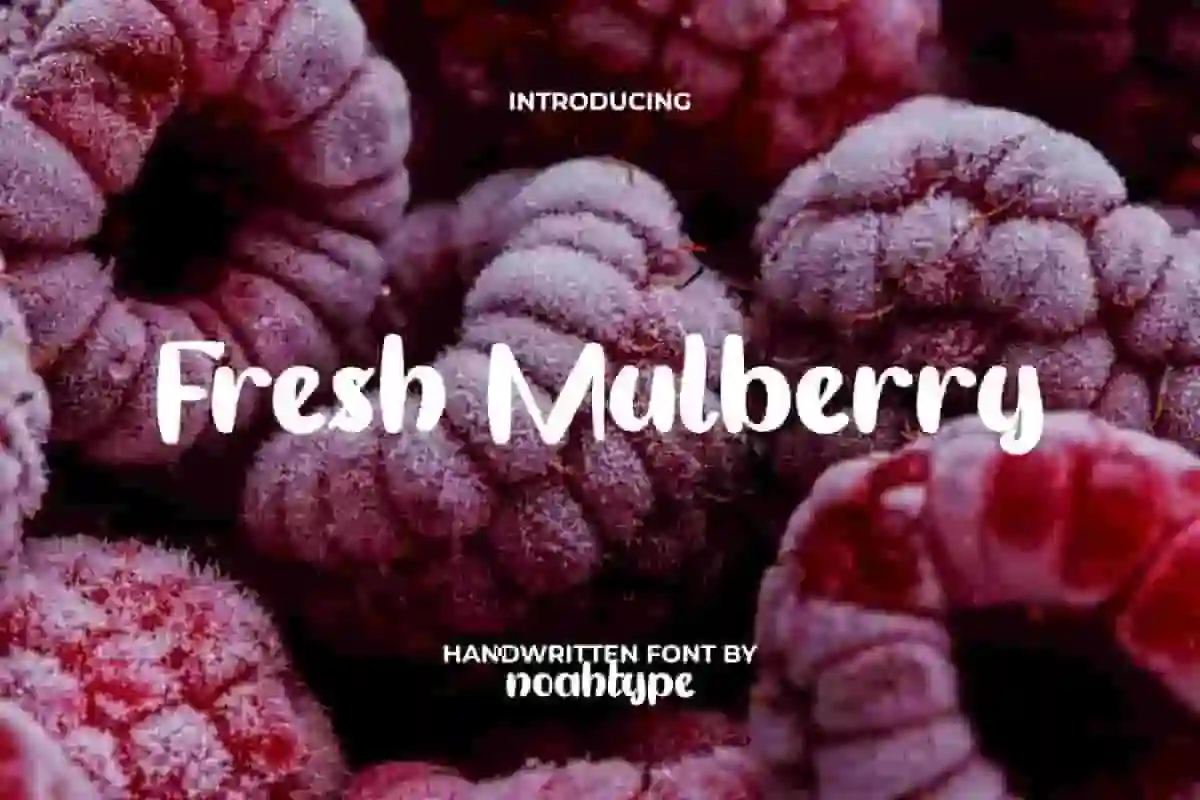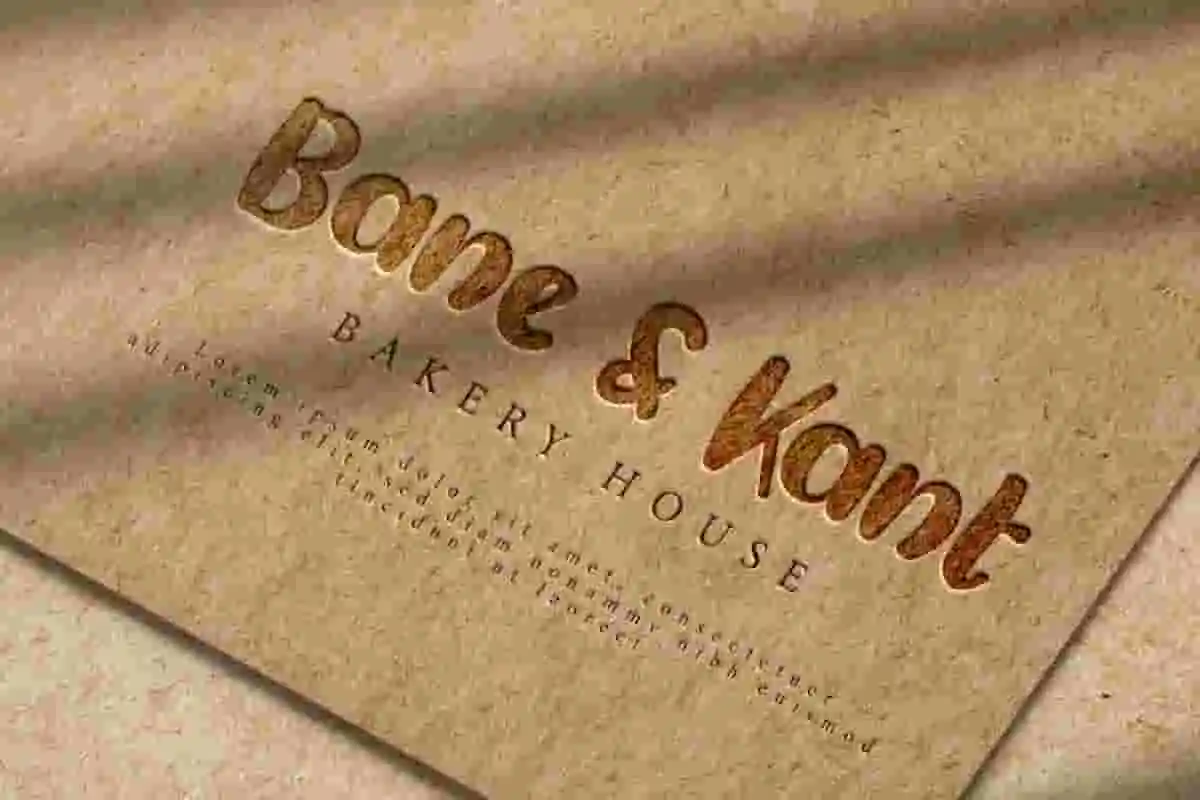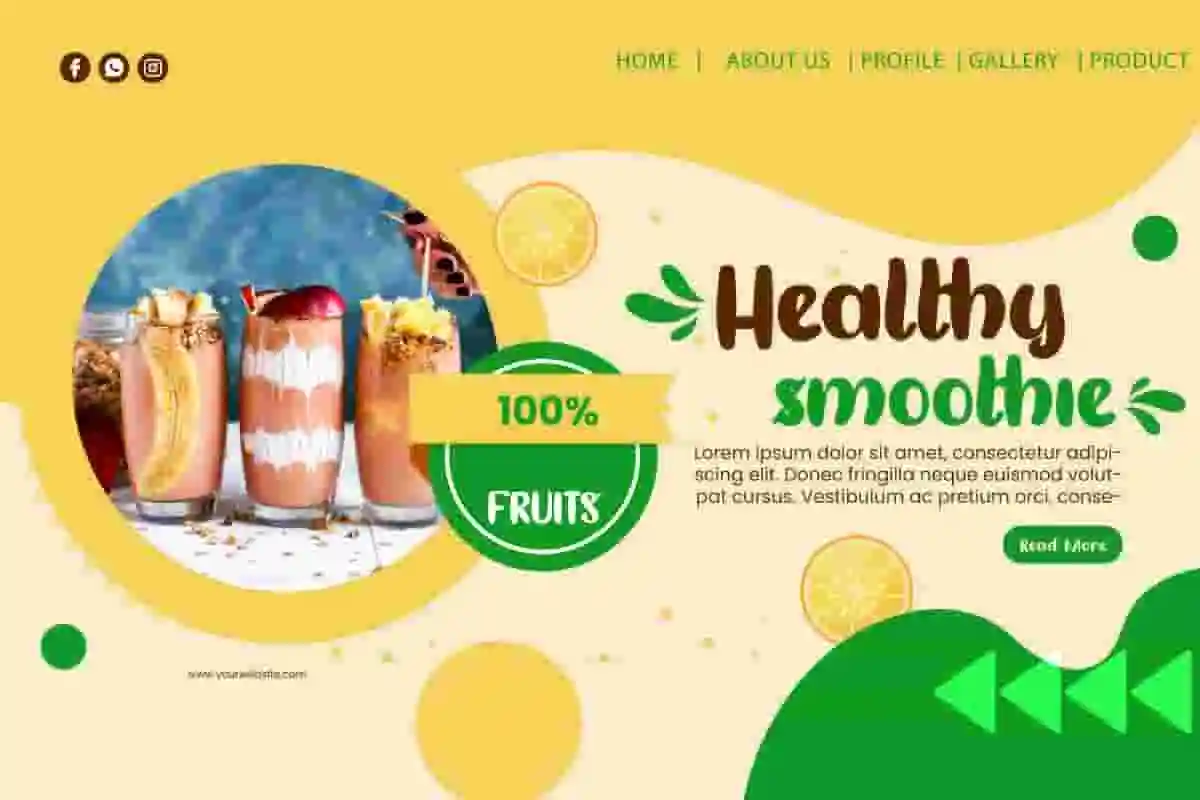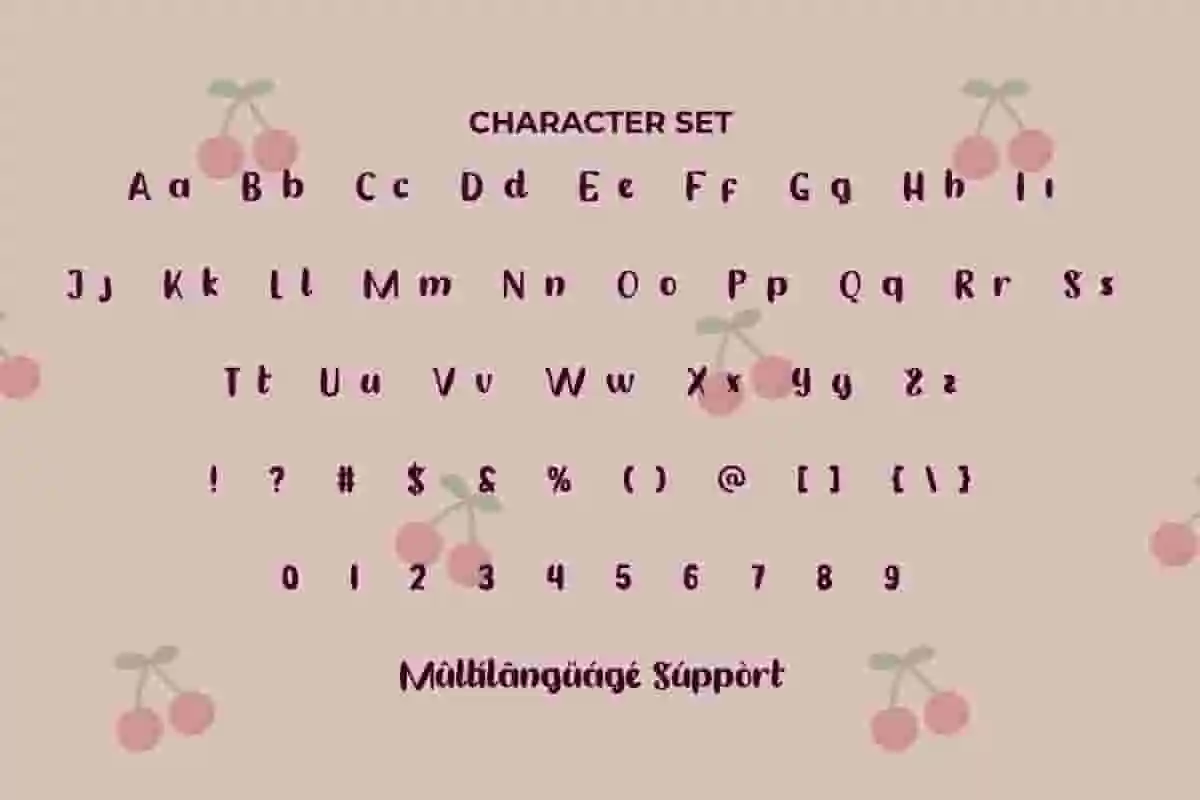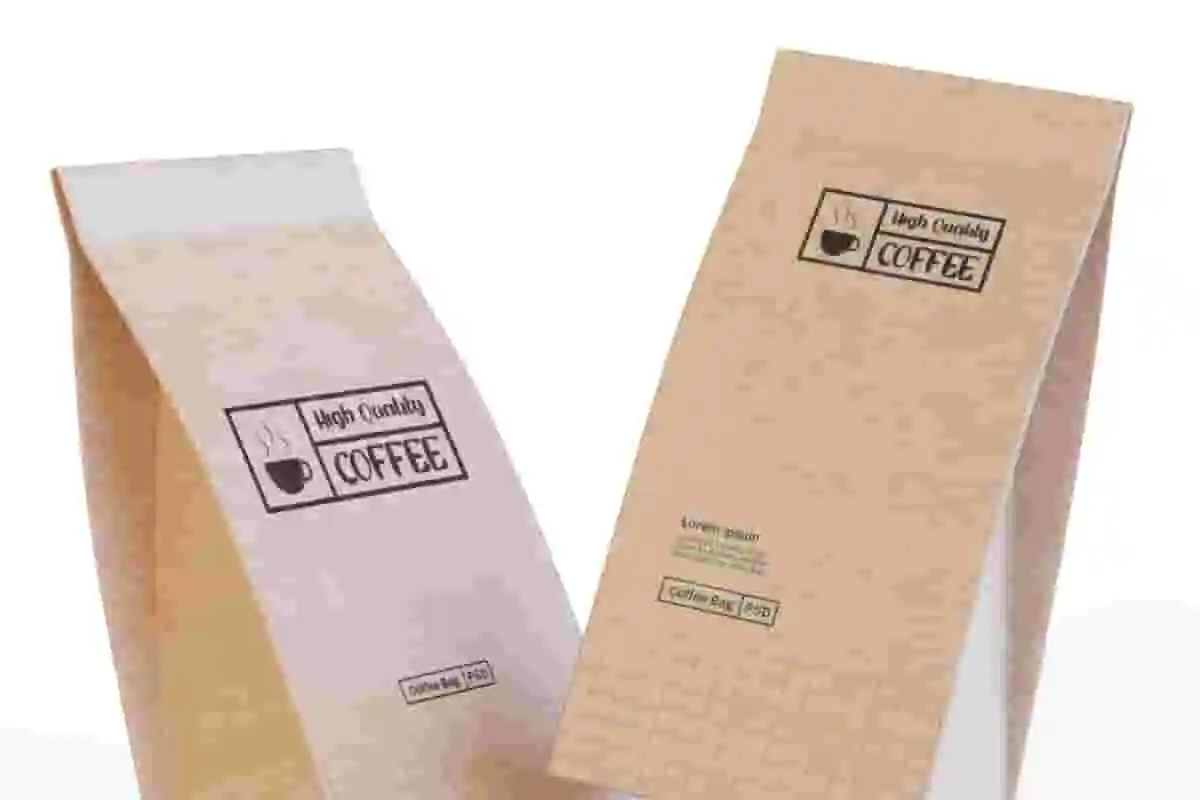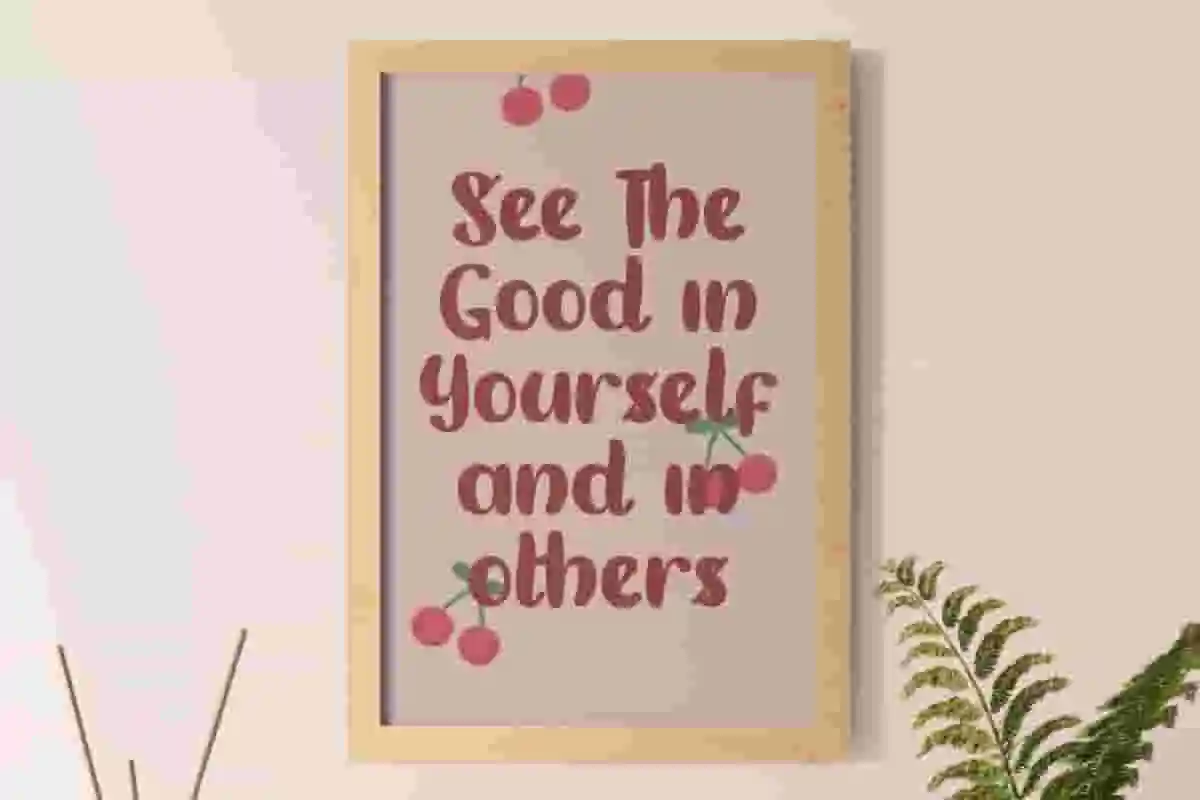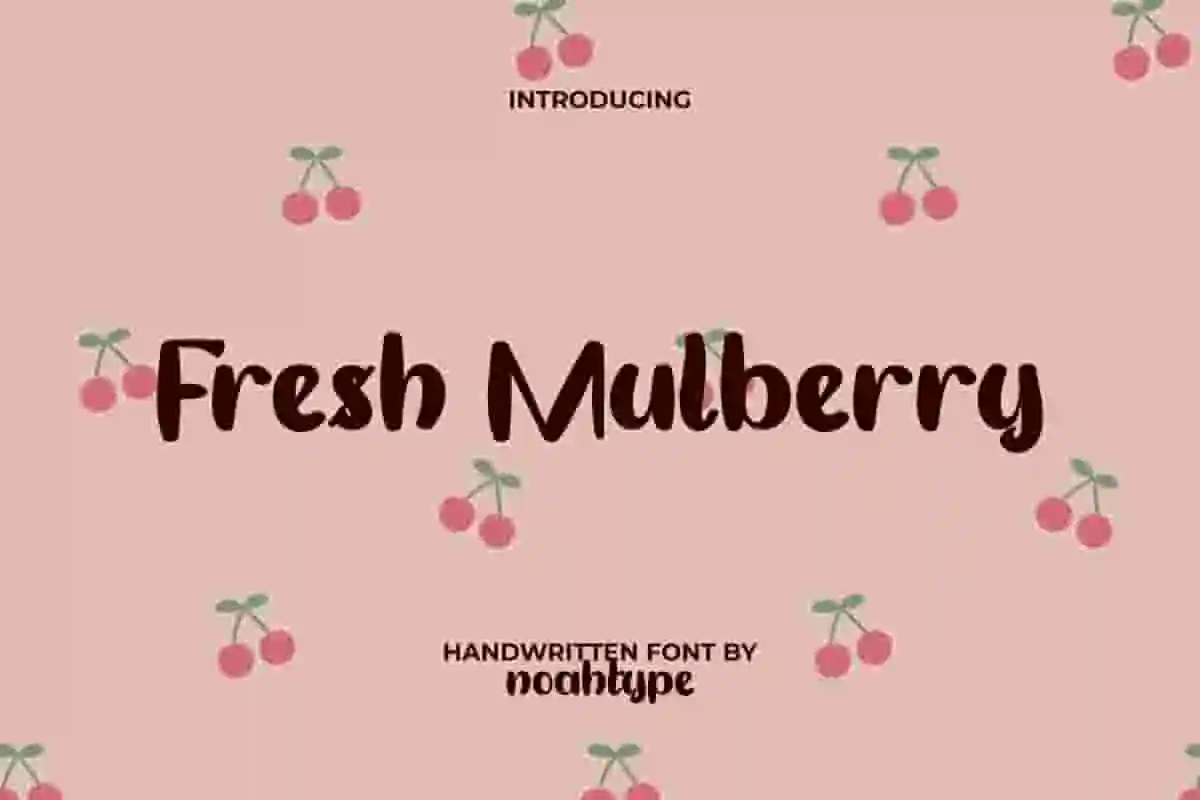
Fresh Mulberry Font is a cute foodist delicious handwritten font. This font has a bubbly shape that looks adorable. You can use this font for any designs, such as brand image, catalog, comic books, cover, custom design, greeting card, invitation, poster, product packaging, quote, stationery, web, and more!
Fresh Mulberry Font includes full set of Uppercase and Lowercase Basic Characters, Numerals, Punctuation, and Symbol. Inspired by the unique shape of the mulberry expressed in written form, also a perfect choice for many industries, such as advertisement, bakery and pastry, beauty product, event or festival, fashion, kids stuff, printing, publishing, toys, etc.